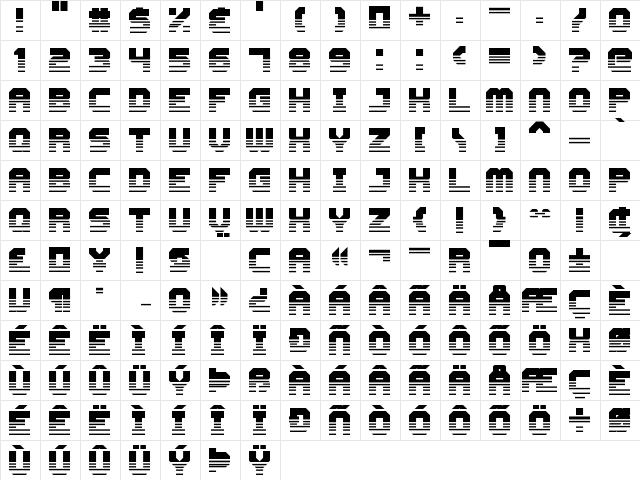
Cyberspace Raceway Front Regular
Design Context for Cyberspace Raceway Front Typeface
Cyberspace Raceway Front channels digital-age aesthetics through its sharp, structured letterforms — ideal for brands that want to signal innovation.
Pro Tip: Try Cyberspace Raceway Front with generous letter-spacing in UI labels and navigation — the geometric forms benefit from room to breathe.